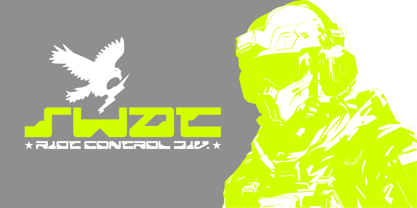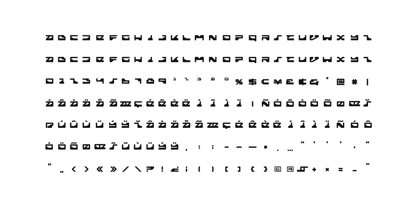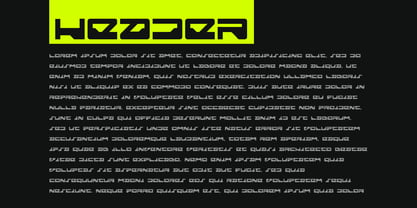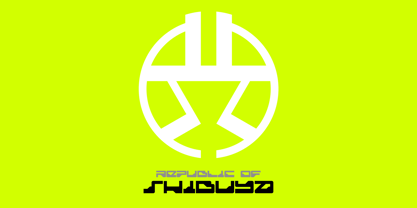
Cylon
by JCNVX
The Cylon Font Family was designed by Jack Cohn and published by JCNVX. Cylon contains 1 styles.
Step into the future with Cylon, a typeface forged at the crossroads of brutalist geometry and cybernetic precision. It’s not just a font—it’s an artifact from a parallel dimension where technology and design merge into a seamless, high-performance interface.
Cylon’s bold, angular forms channel the essence of industrial design, evoking the sharp edges of stealth technology and the coded language of digital pioneers. Its blocky yet fluid construction feels like the blueprint of an encrypted future—each glyph a key to unlocking a new visual language.
More than just a display font, Cylon excels as a statement piece. Whether dominating as a headline or embedding itself as a branding element, it carries a raw, kinetic energy that makes any composition feel engineered for impact. It transforms static layouts into high-voltage grids of motion and meaning.
Designed for those who refuse to blend in, Cylon is a declaration of creative defiance—a glimpse into a world where typography isn’t just seen, but felt. Ready to decode the next era of design? The signal is